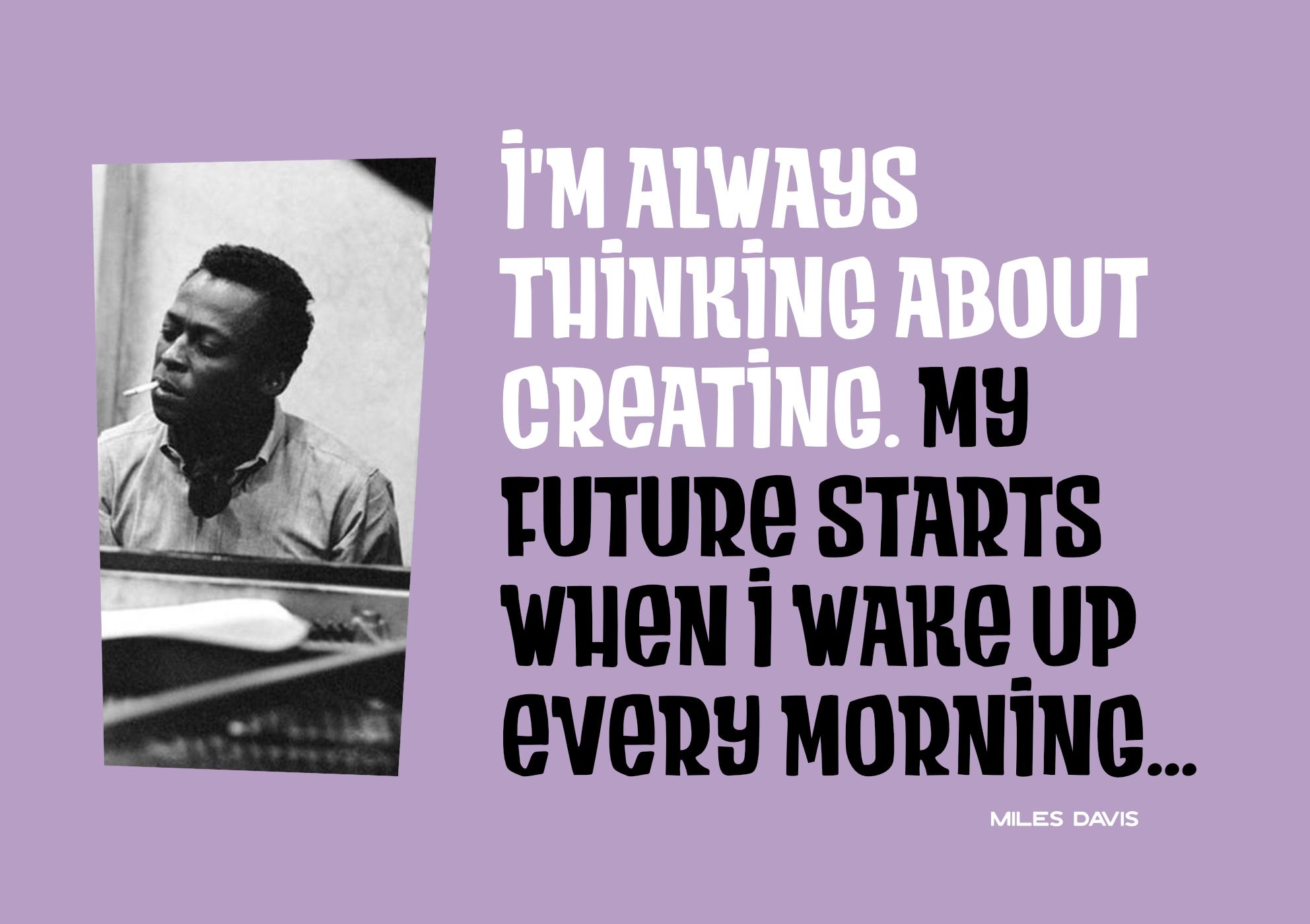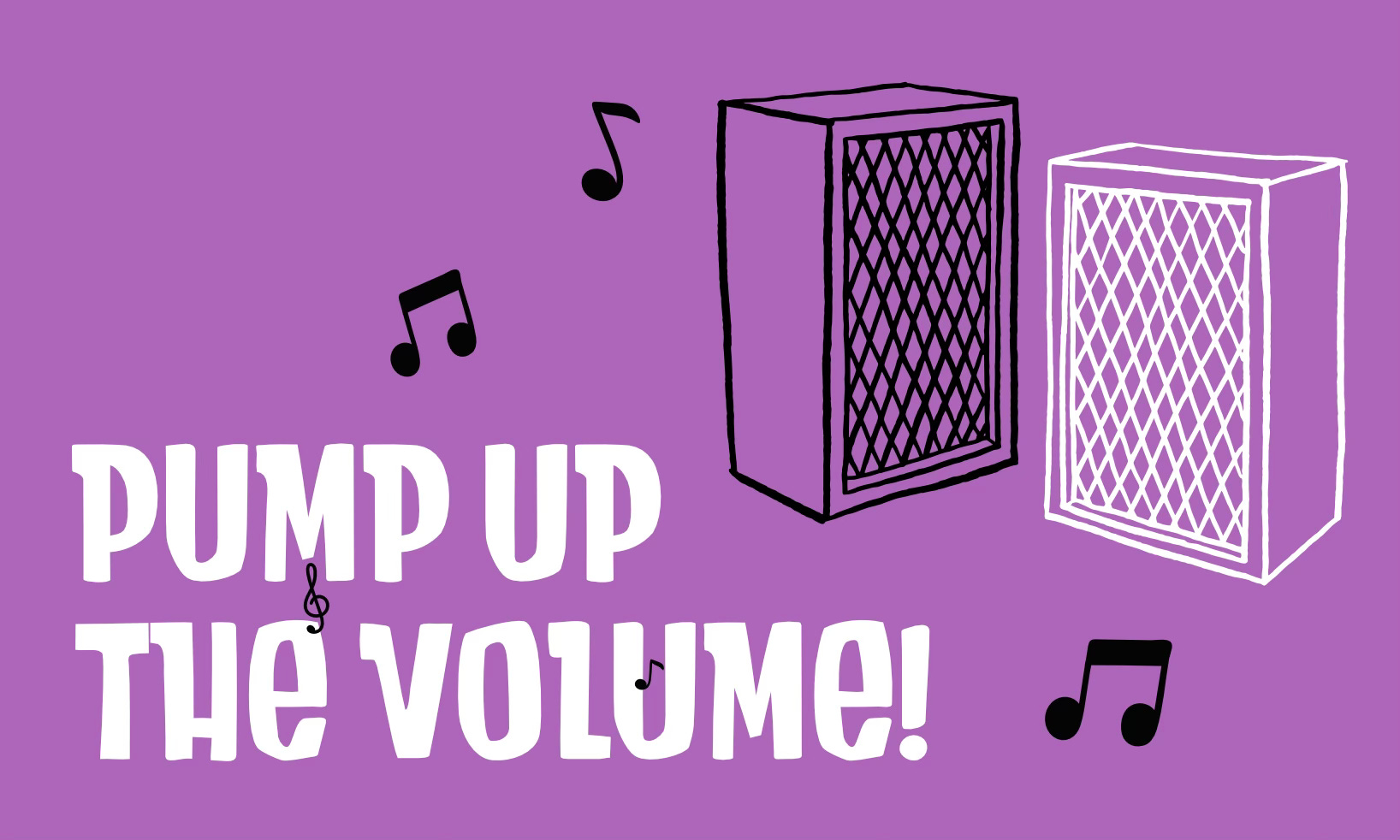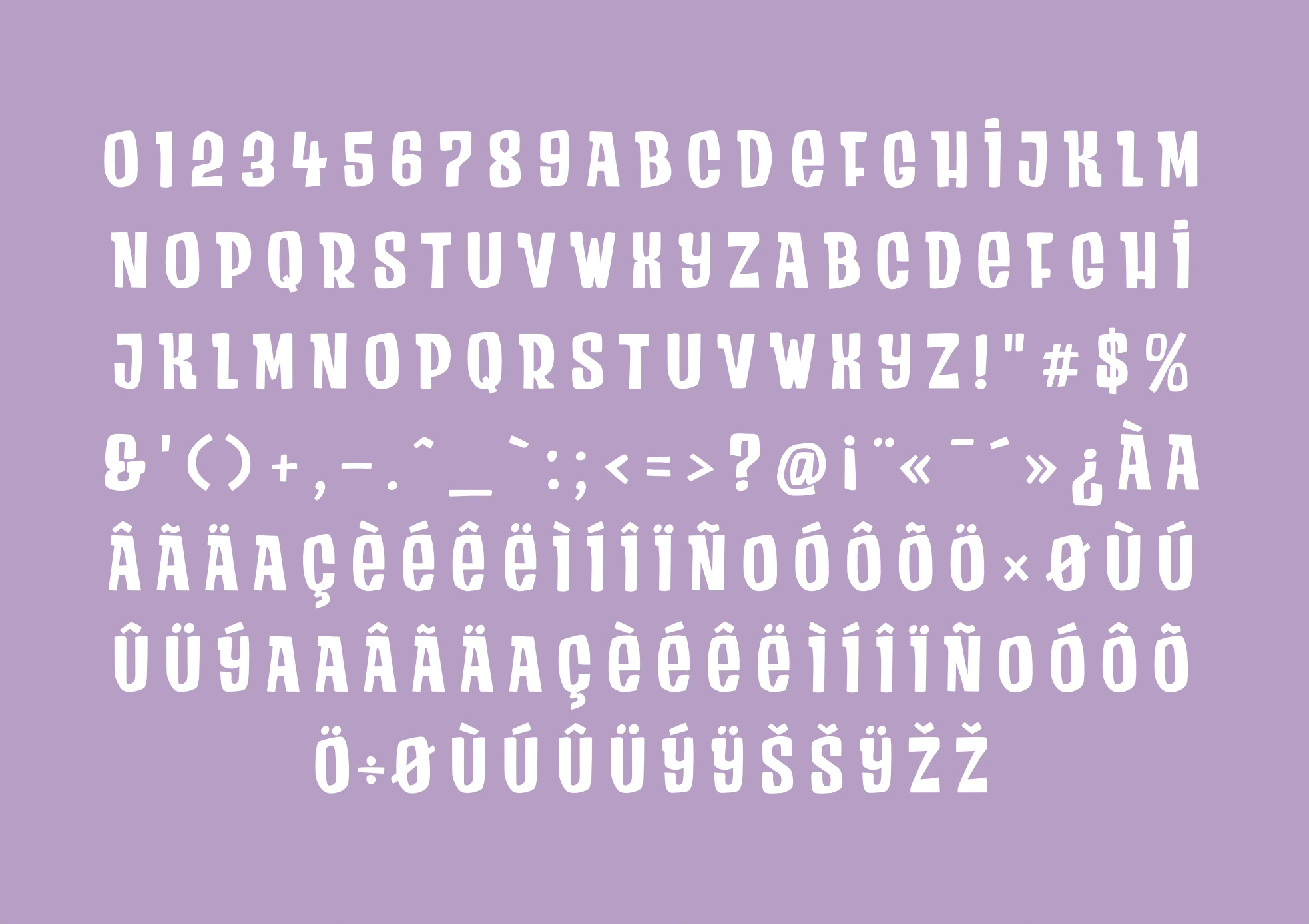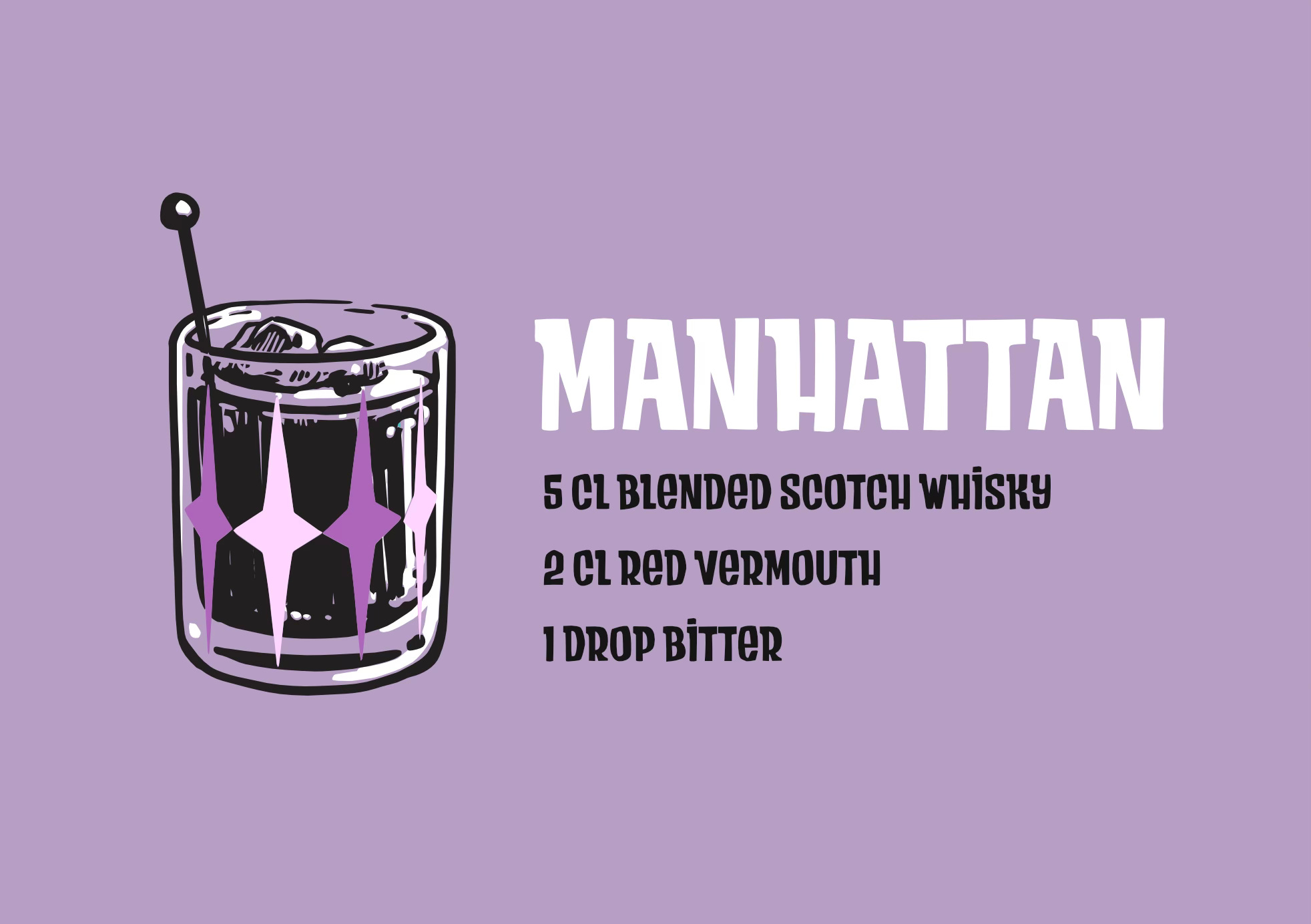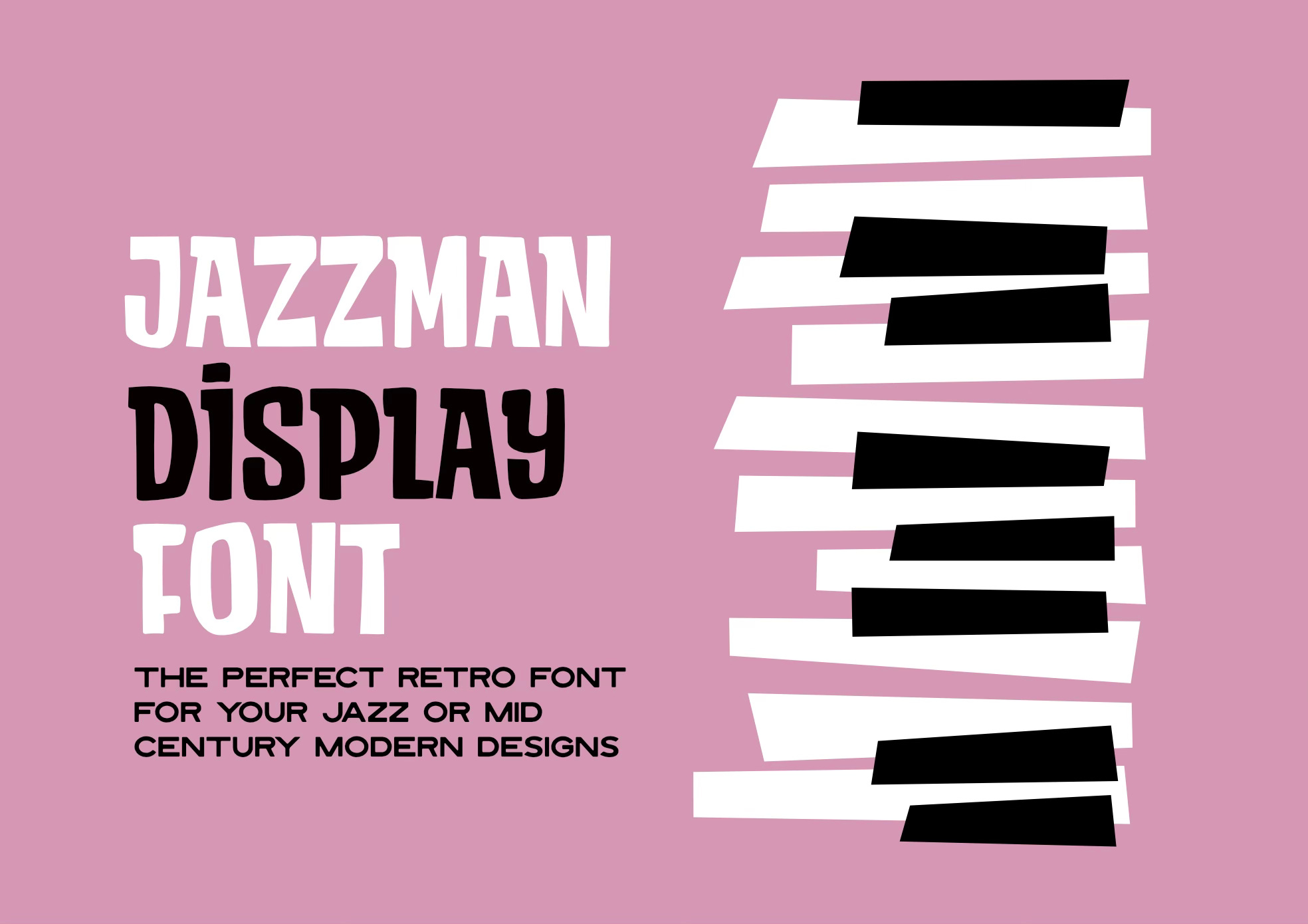
That was a really long time I did not release any font. More than one year I think. But today, I am happy to launch Jazzman, my new fun, hand made and always with that retro, mid-century vibe :) And this time I tried to focus a bit more on one of my passion, music. So the whole project was thought around Jazz, and especially jazz from the 50/60s.
But let’s be honest here, If I looked at some jazz inspiration, mid century graphic design is so large that you find kind of the same ideas in different areas, like jazz, but also, movies or magazines. So if I named my font Jazzman, it does not mean you can only use it for music purpose of course. I am sure it can fit many many purpose.
So here are some visuals I did for the launch. I would love to animate some stuff but I don’t have the skills and no money to pay someone for now. But for that font, I really want to think about animating it in the next months.
For the process side, it was all made on Fontself for the iPad. Yes, you hear me right, I did not use any computer to create that font. Fontself is so perfect for hand made fonts. It does manage spacing and kerning for you, so the process can be really fast. Now the app has many features that help you on the refining side too. This is a really cool app to use. Go try it :)